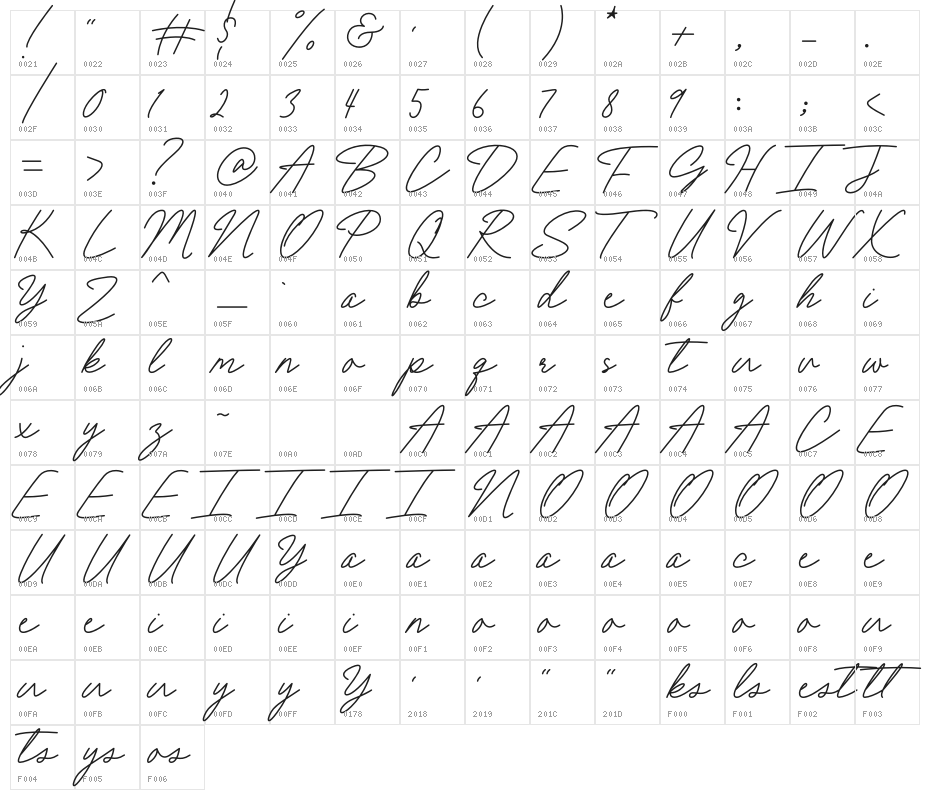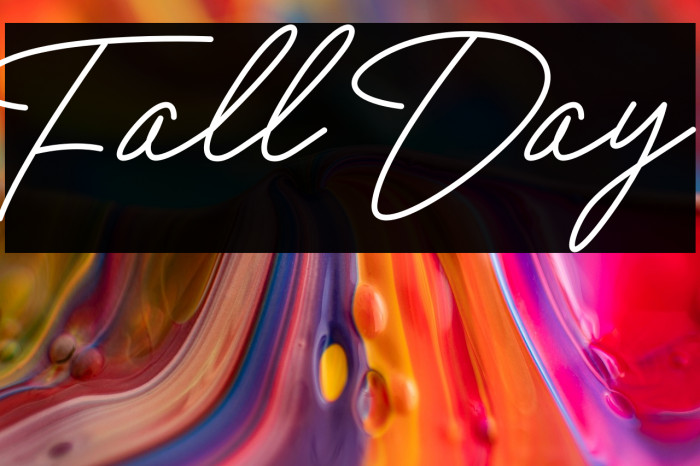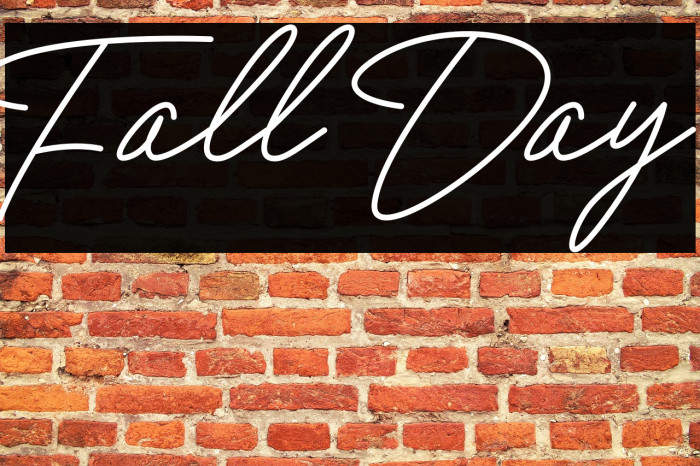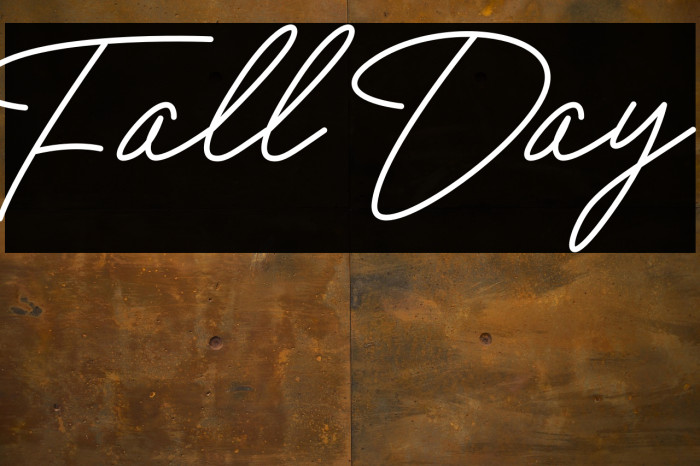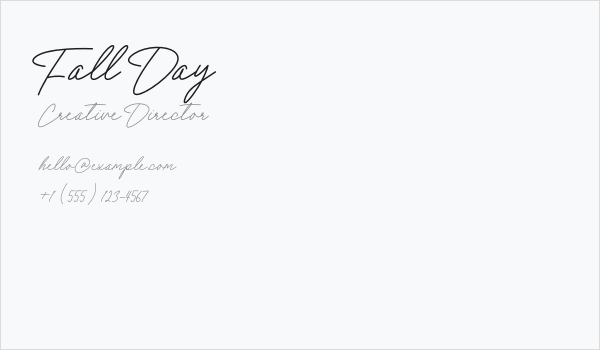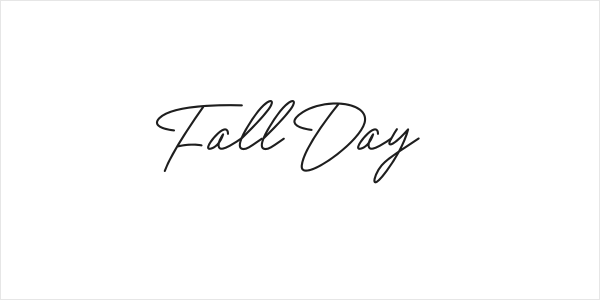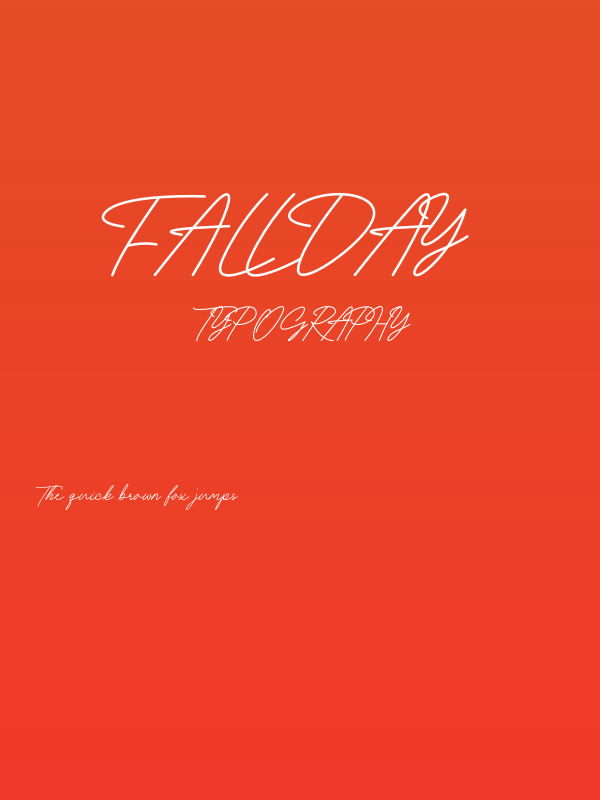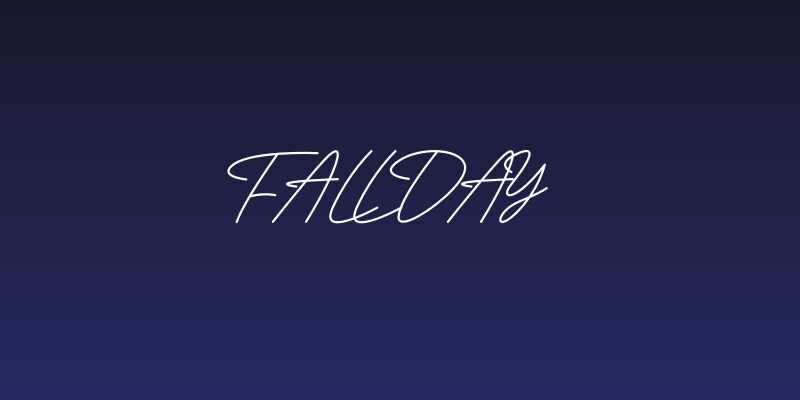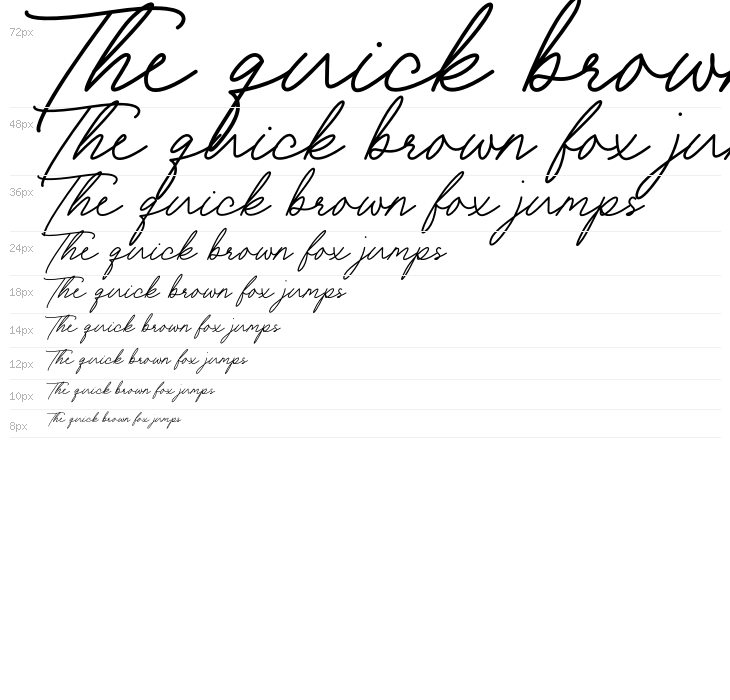
Fall Day Font
Fall Day Description
A flowing, cursive script font with a handwritten style, featuring smooth, connected letters and a casual elegance.
| Overall Style | Casual, Elegant |
| Use Case | Logos, Invitations, Personal notes |
| Proposed Projects | Invitations, greeting cards, personal branding. |